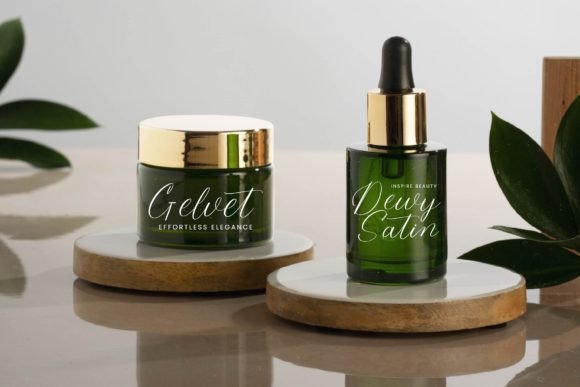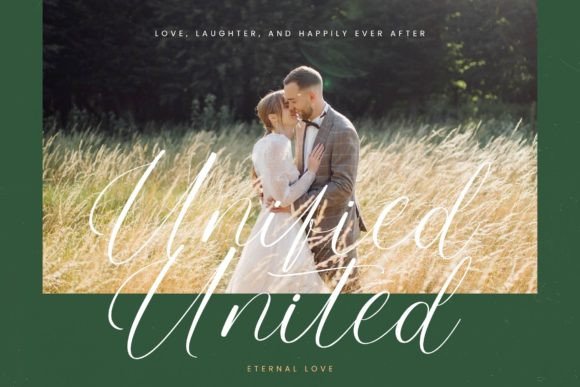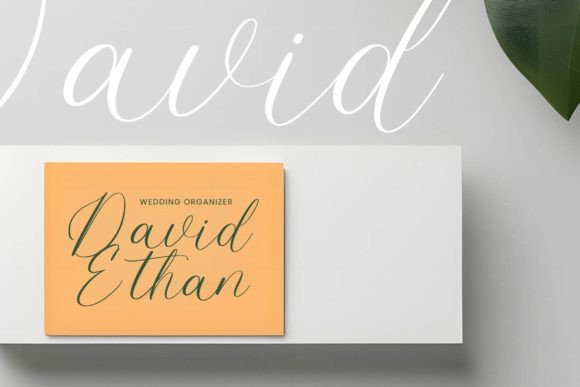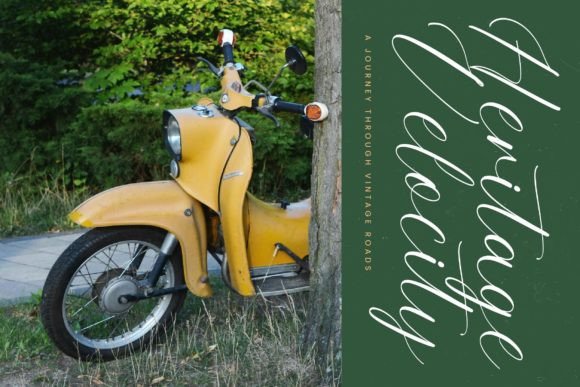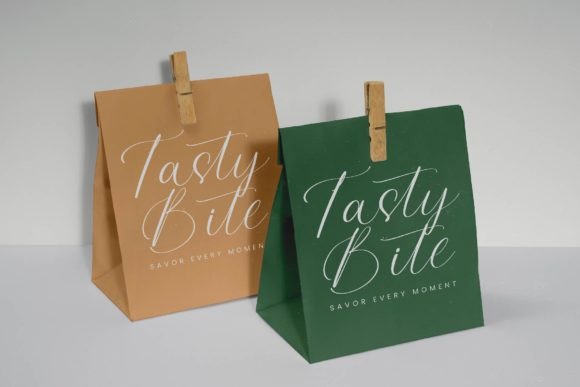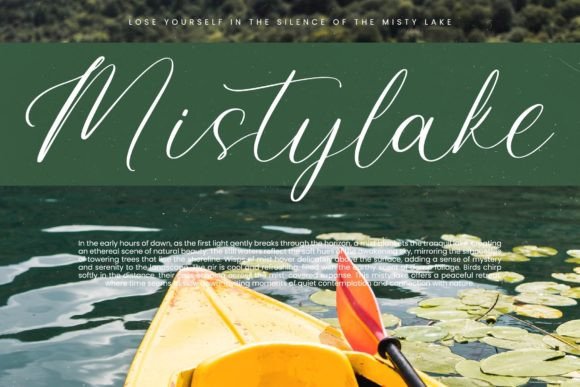
The Elegance of Flower Estates Font: A Designer’s Delight
I still remember the time I was working on a wedding invitation project, and my client asked me to create a sophisticated and luxurious feel. I scoured through my font library, but nothing seemed to fit the bill. That’s when I stumbled upon Flower Estates, an elegant script font that has since become one of my go-to choices for adding a touch of class to any design.
A Personal Review of Flower Estates
So, what makes Flower Estates so special? Let’s dive into the good stuff! 😊
- ✨ Elegant and flowing cursive letters that exude sophistication
- ✅ Luxurious feel perfect for high-end designs, invitations, and greeting cards
- 🔥 Highly legible, even at smaller font sizes
- 🎨 Versatile and works well with a variety of design styles
While Flower Estates is an amazing font, it’s not perfect. Here are a few things to keep in mind:
- 🤔 Some letters may require manual kerning for optimal spacing
- ⚠️ Not ideal for body text or long paragraphs, as it’s best suited for headlines and titles
- Experiment with OpenType features, such as ligatures and stylistic alternates, to add visual interest
The Story Behind Flower Estates
Flower Estates was designed by a talented typographer who drew inspiration from classic calligraphy and elegant handwriting. The font’s creator aimed to craft a sophisticated and luxurious feel, perfect for designs that require a touch of refinement. While the font’s origins may be fictional, its beauty and versatility are very real.
| Font Name | Flower Estates Font |
| Author | Letterena Studios |
| What type of designs is Flower Estates best suited for? | Flower Estates is ideal for designs that require a luxurious and sophisticated feel, such as invitations, greeting cards, and high-end branding. |
| Does Flower Estates support OpenType features? | Yes, Flower Estates supports OpenType features, including ligatures, stylistic alternates, and glyphs. |
| Can I use Flower Estates in digital and print designs? | Absolutely! Flower Estates is versatile and works well in both digital and print designs. |